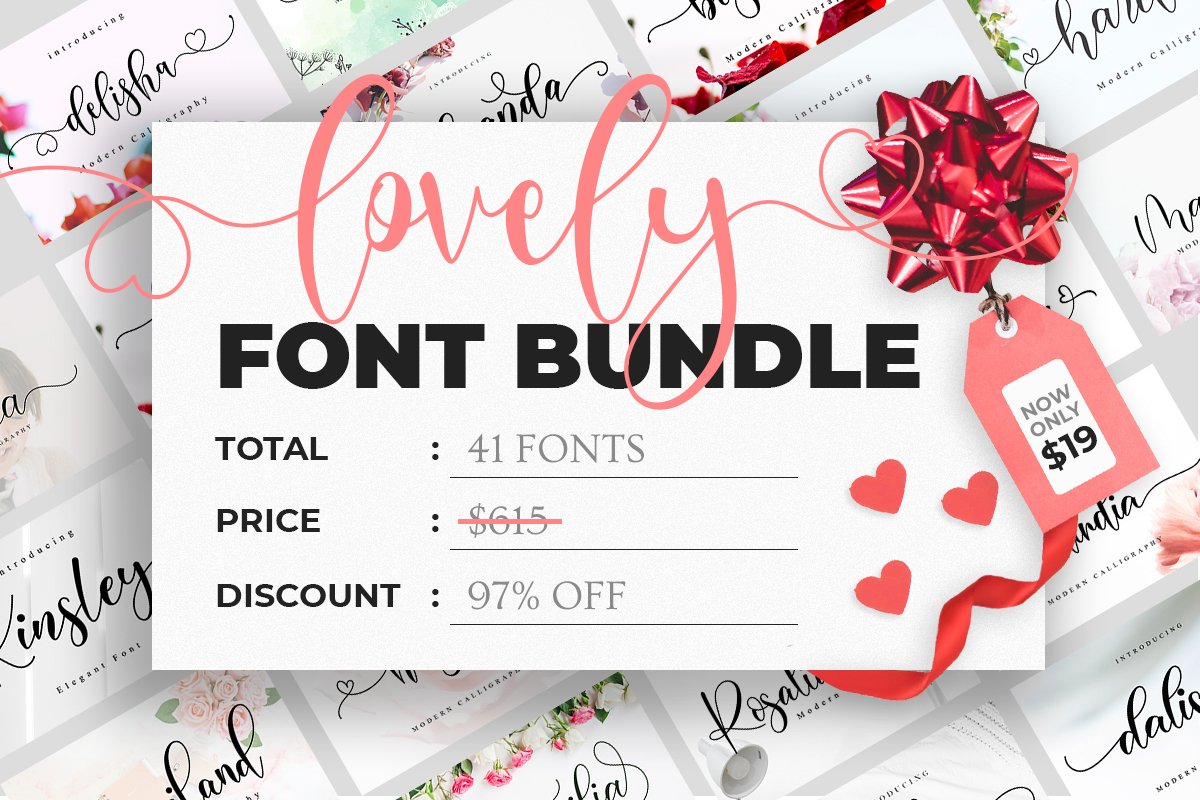
Lovely Font Bundle
Valeyola
Richgole
Kimberline
delisha
Boshela
Haisley
Belisha
Endenesilia
Perisha
LAILA
Paisley
Madegola
Rosaliana
Alyanda
Hosbela
Belista
Elmira
GISELLE
Bailey
Domiland
Baisley
Belindia
Clara
Balimora
Poppy Shower
Cinderella
Michalina
Delandia
Madalina
Daliska
Ayalda
KINSLEY
Laudiea
Bianca
Oh Beloved
Freelove
Clarista
Harelia
Amadea
Delara
Junitta
LOVELY FONT BUNDLE
Best selling FONTS here's your chance to get a large number of best-selling fonts.
This package contains 41 Font Scripts popular . Includes some best-selling fonts.